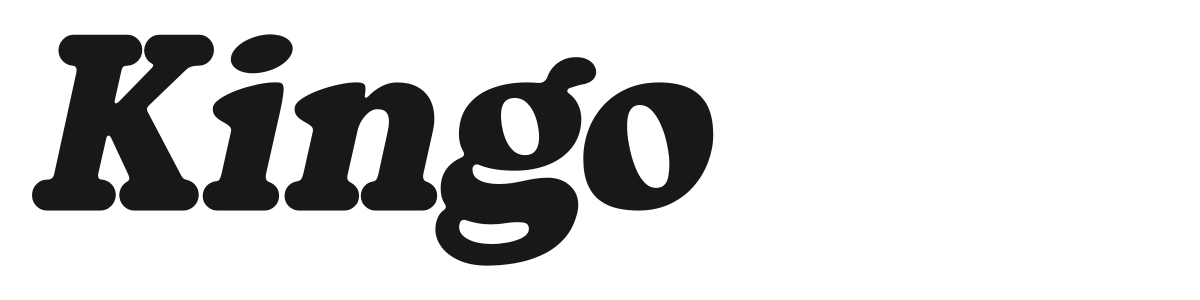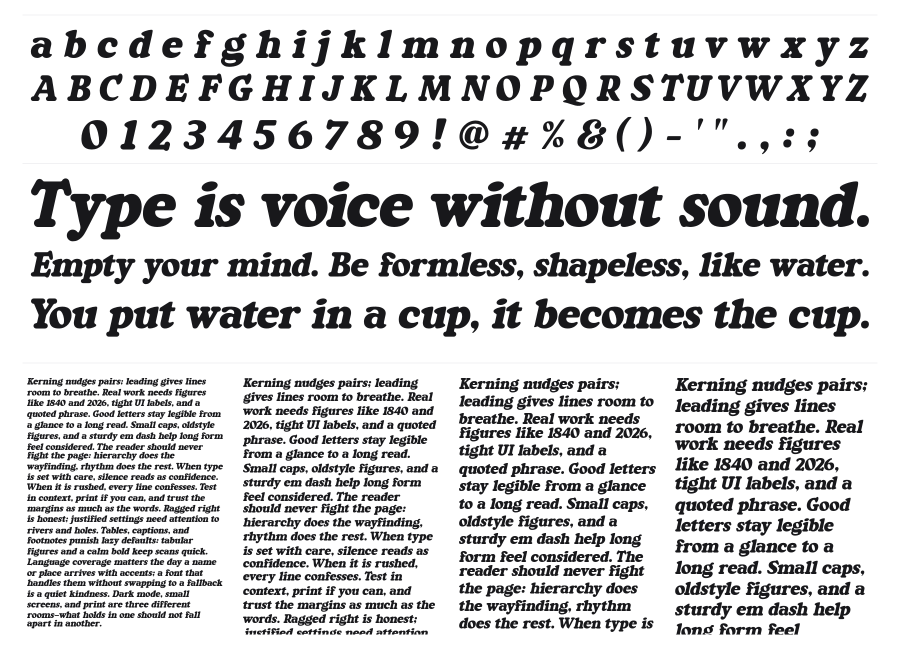
Kingo
Kingo is a heavy italic slab-serif with wide proportions, chunky bracketed serifs, and a strong forward lean. Its combination of high weight and lively curves channels the bold editorial energy of 1970s magazine typography. The result is a typeface that commands attention on posters, packaging, and logos.